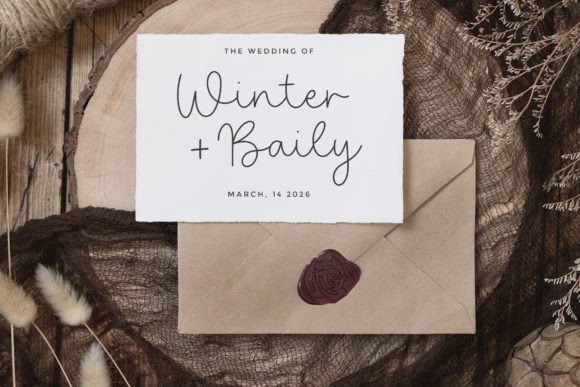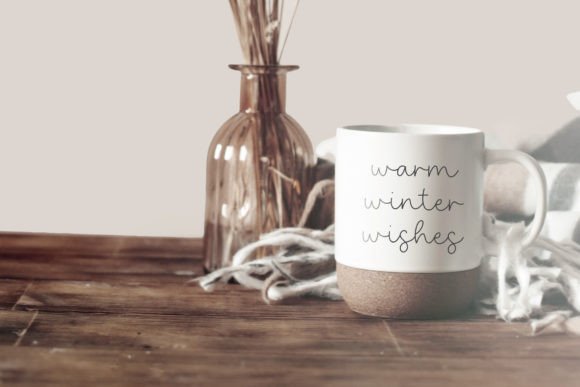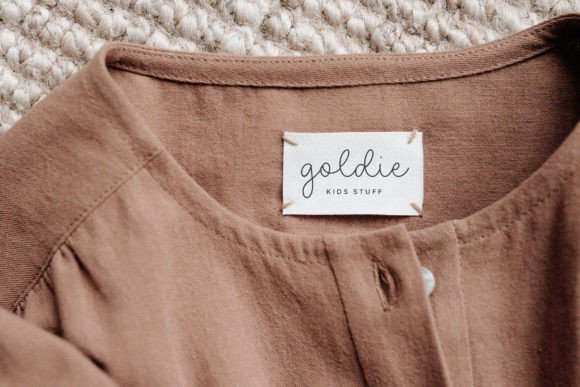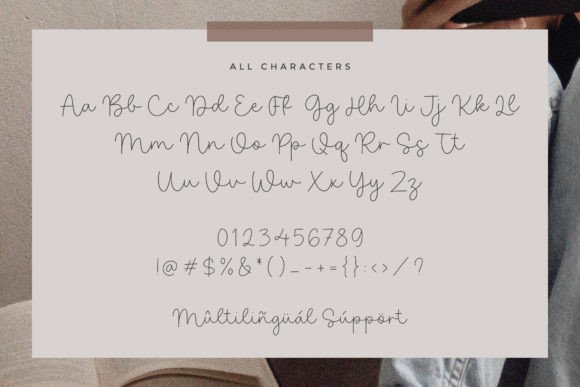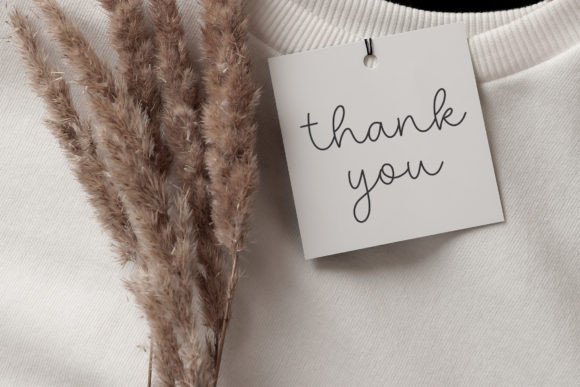
Introducing Heather Violeta Font: Elevate Your Designs with Luxury and Elegance
In the world of typography, fonts play a crucial role in conveying the tone and personality of a design. For designers and crafters looking to add a touch of luxury and sophistication to their projects, the Heather Violeta Font is an exceptional choice. This beautiful, light handwritten font boasts a unique feel and stunning impact, making it perfect for a wide range of design applications.
What Makes Heather Violeta Font Stand Out?
Heather Violeta Font is not just another font; it’s a design statement. Its light, airy feel and elegant handwritten style make it instantly recognizable. Here are some key features that set Heather Violeta apart:
- Unique and Luxurious Feel: The font’s distinctive style adds a touch of elegance and sophistication to any design, making it perfect for projects that require a high-end look.
- PUA Encoded: Heather Violeta Font is PUA (Private Use Area) encoded, which means you can easily access a wide range of glyphs and ligatures. This feature makes it incredibly versatile and user-friendly.
- Stunning Impact: The font’s beautiful, flowing lines and curves create a stunning visual impact, drawing the viewer’s eye and making your design stand out.
Whether you’re a professional designer or a crafter looking to add a personal touch to your projects, Heather Violeta Font is an excellent choice. Its versatility and elegance make it suitable for a wide range of applications, including:
- Branding and Logo Design: Create a lasting impression with a unique and luxurious logo that reflects your brand’s personality.
- Stationery and Invitations: Add a touch of elegance to your stationery, invitations, and greeting cards.
- Packaging and Product Design: Make your products stand out with beautiful, eye-catching packaging that showcases your brand’s style.
- Digital and Print Media: Use Heather Violeta Font in your digital and print media, such as brochures, flyers, and social media graphics.
Why Choose Heather Violeta Font?
With so many fonts available, why choose Heather Violeta? Here are a few reasons why this font stands out:
- High-Quality Design: Heather Violeta Font is designed with precision and attention to detail, ensuring a high-quality look that will elevate your designs.
- Easy to Use: The font’s PUA encoding makes it easy to access and use, even for those without extensive design experience.
- Versatile: Heather Violeta Font can be used in a wide range of design applications, making it a valuable addition to your font library.
Tips for Using Heather Violeta Font
To get the most out of Heather Violeta Font, here are a few tips:
- Pair with Complementary Fonts: Combine Heather Violeta Font with complementary fonts to create a unique and visually appealing design.
- Play with Ligatures: Take advantage of the font’s ligatures and glyphs to add a touch of elegance and sophistication to your design.
In conclusion, Heather Violeta Font is a beautiful and luxurious handwritten font that can elevate any design project. Its unique feel, stunning impact, and ease of use make it an excellent choice for designers and crafters looking to add a touch of elegance and sophistication to their work.